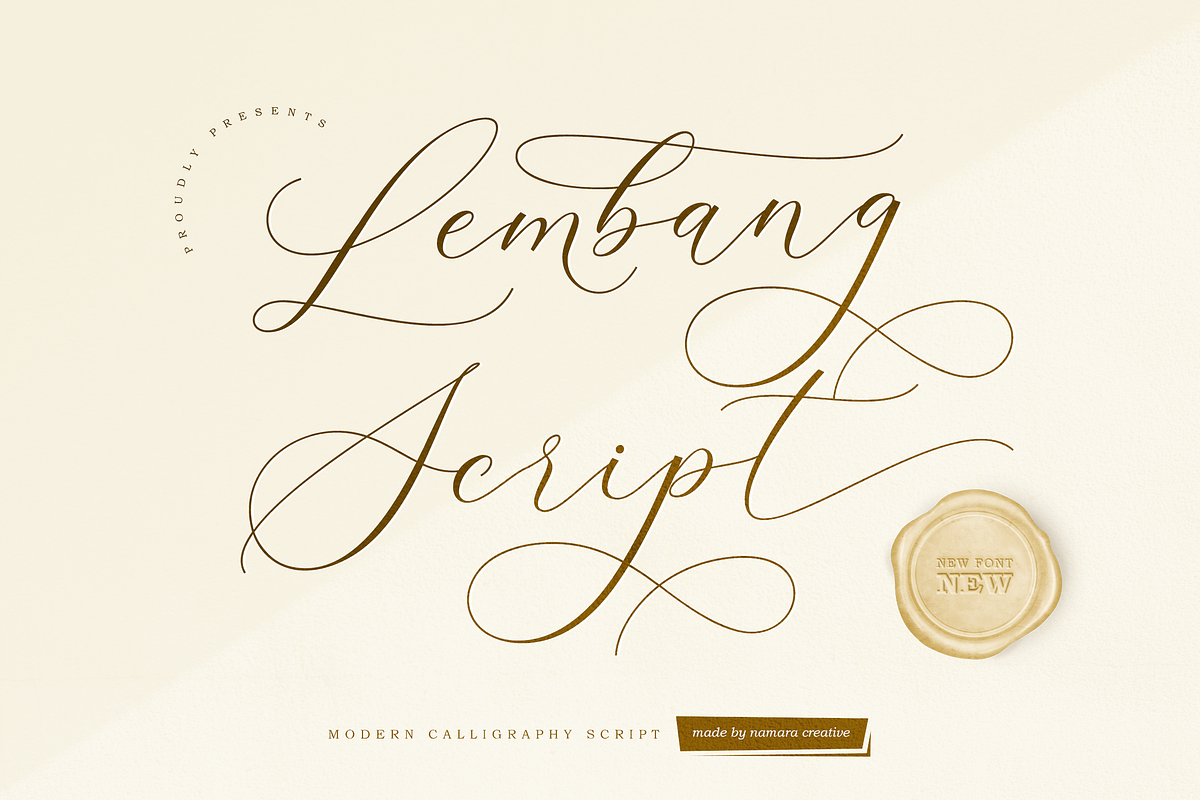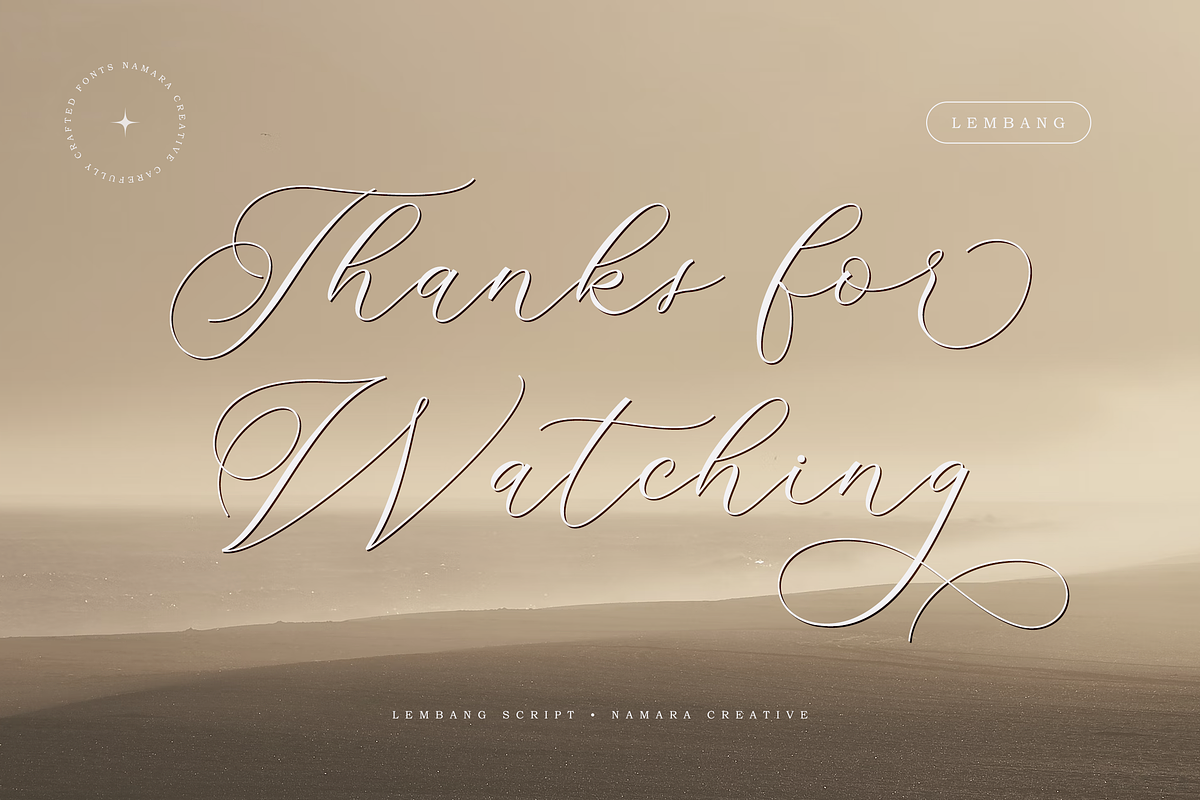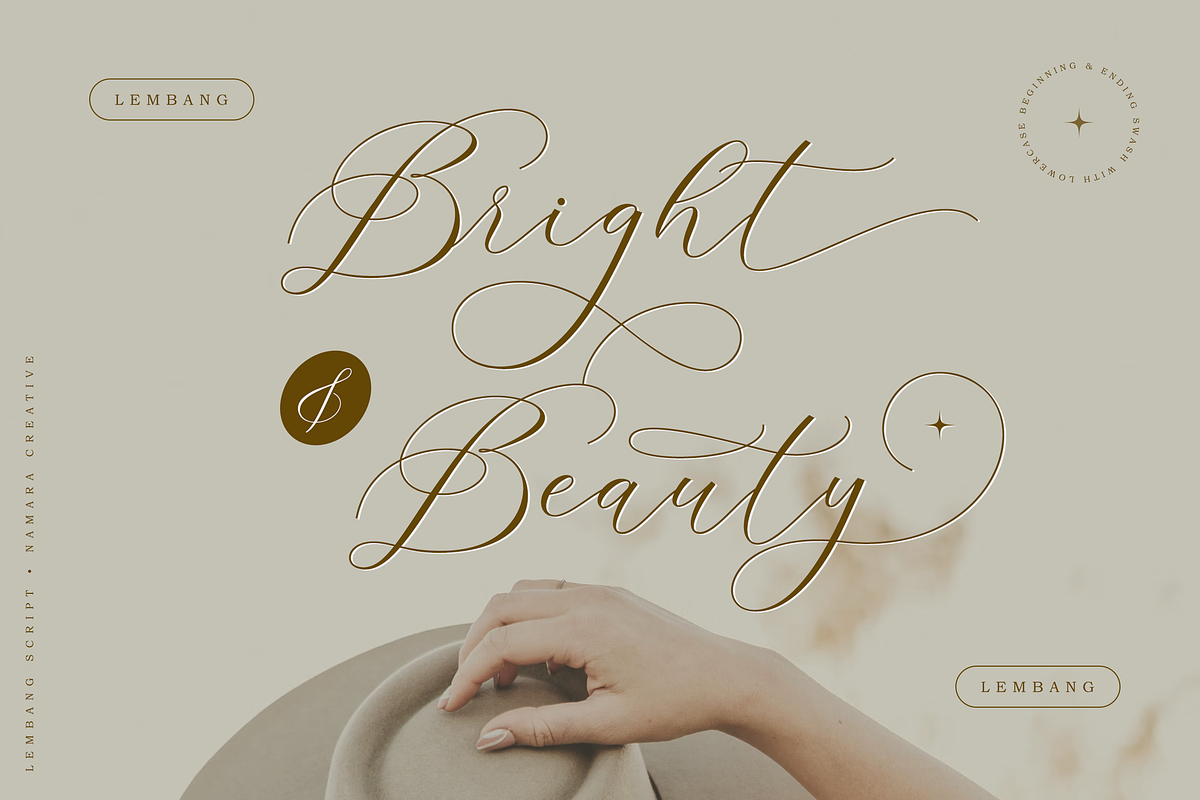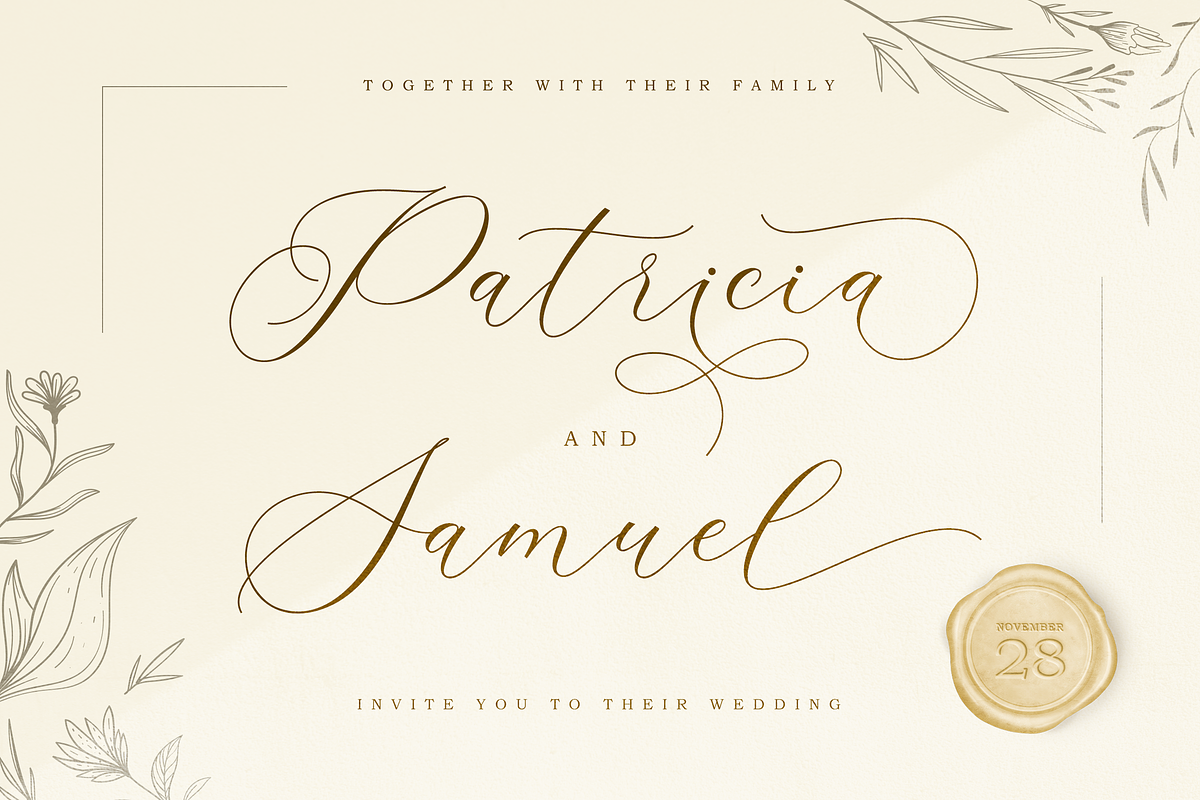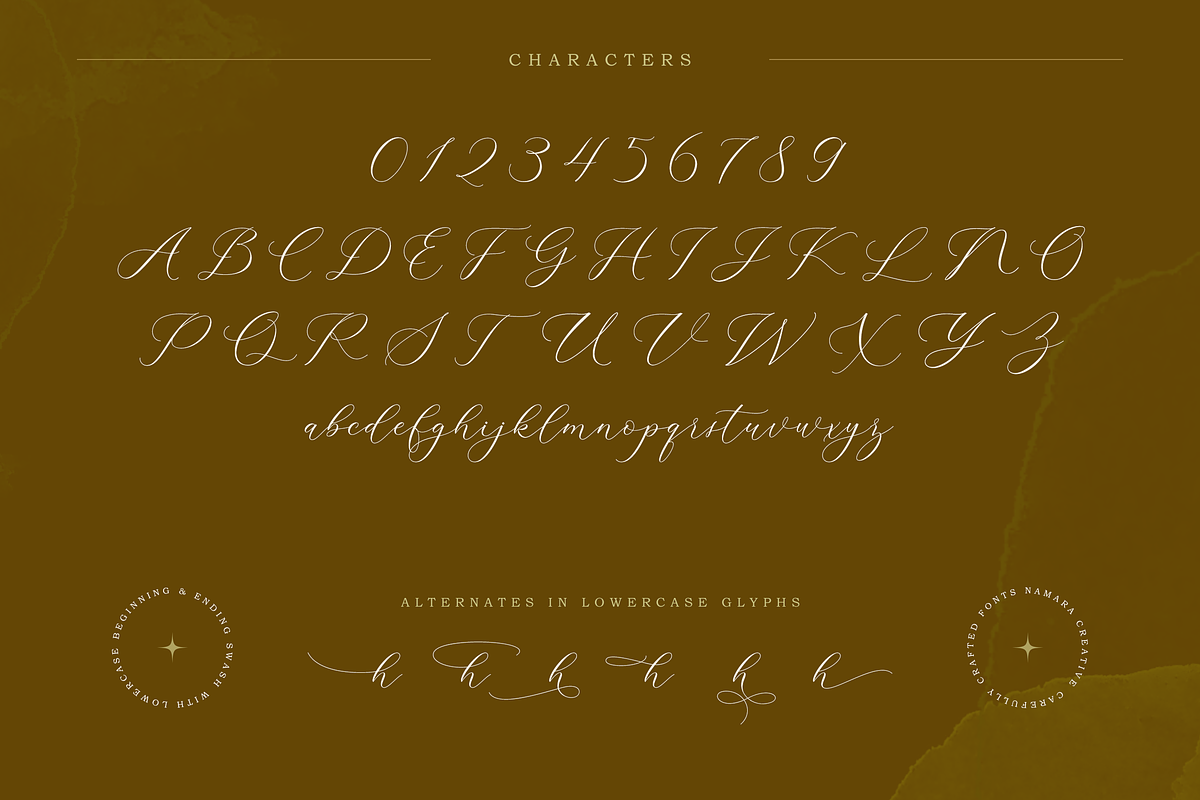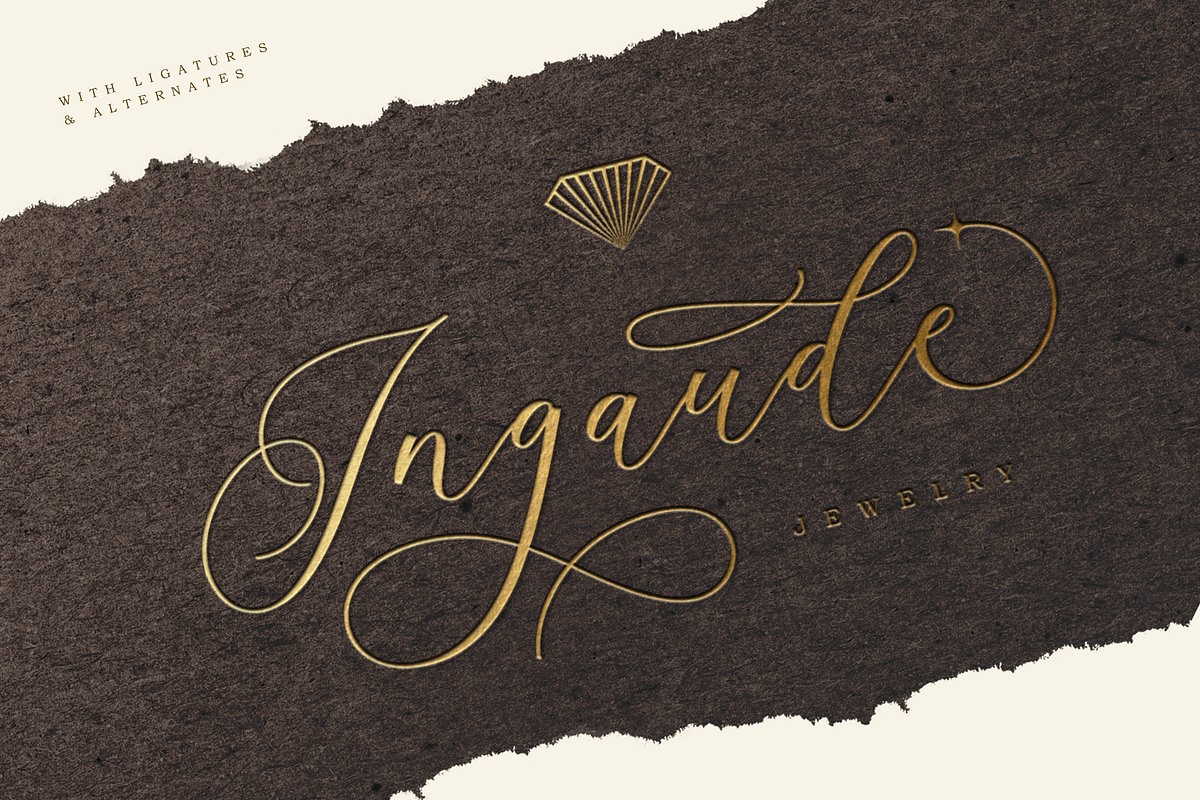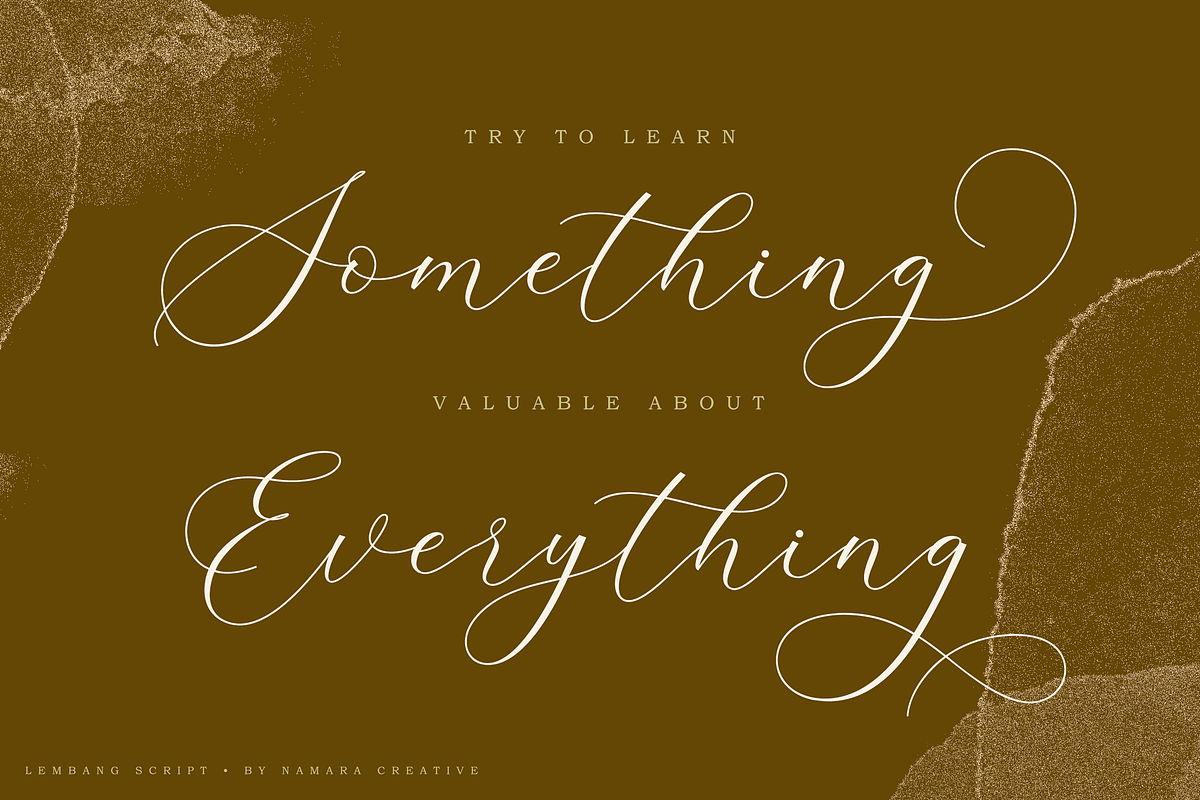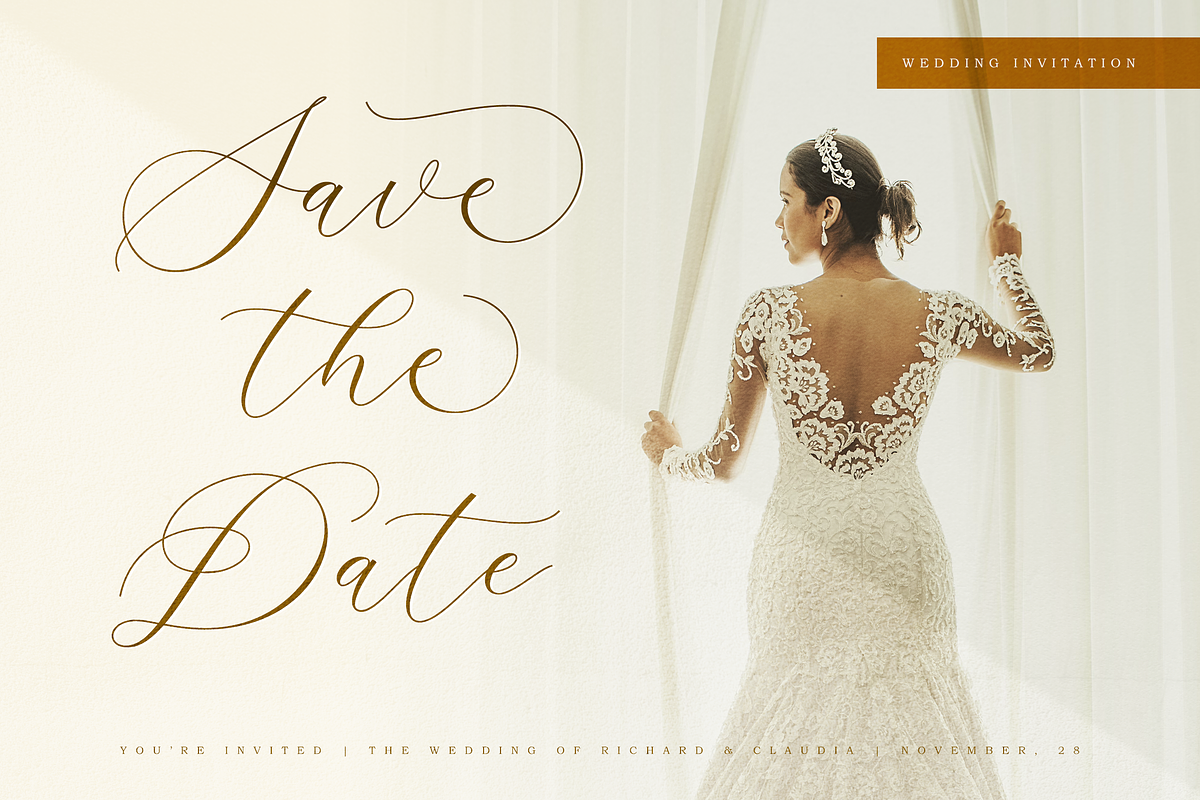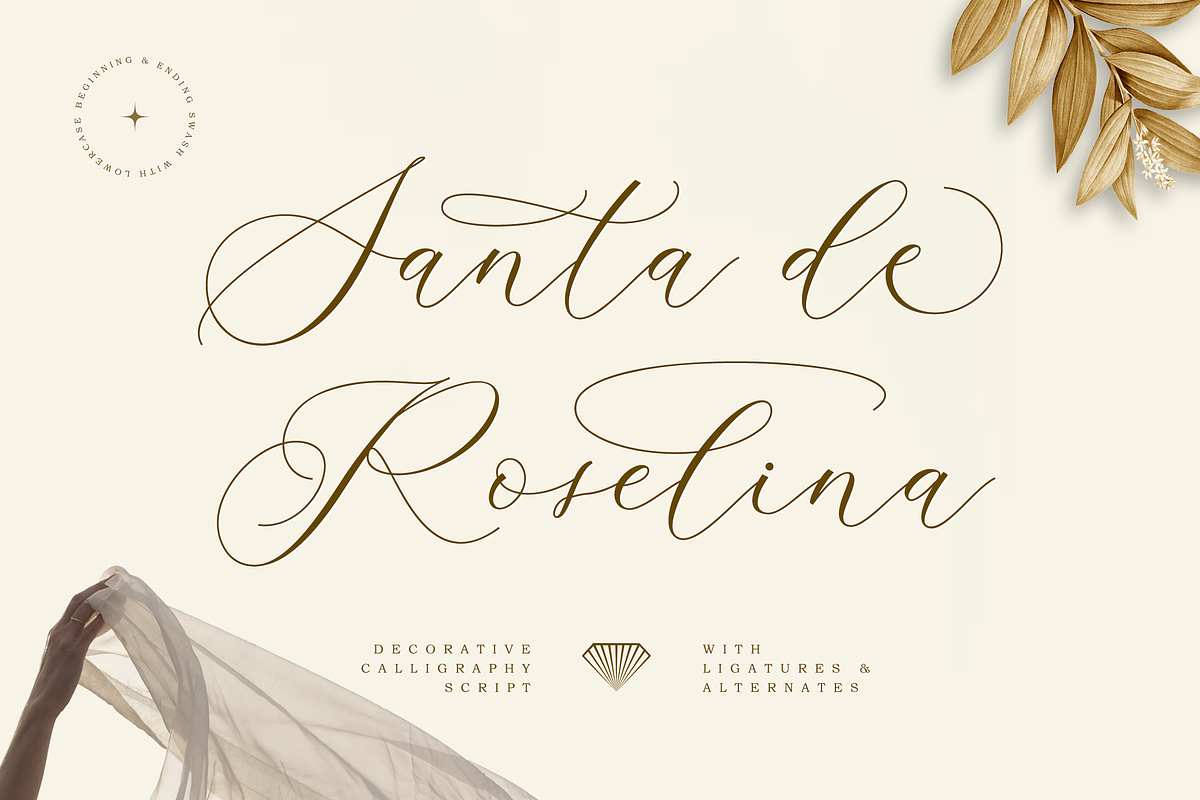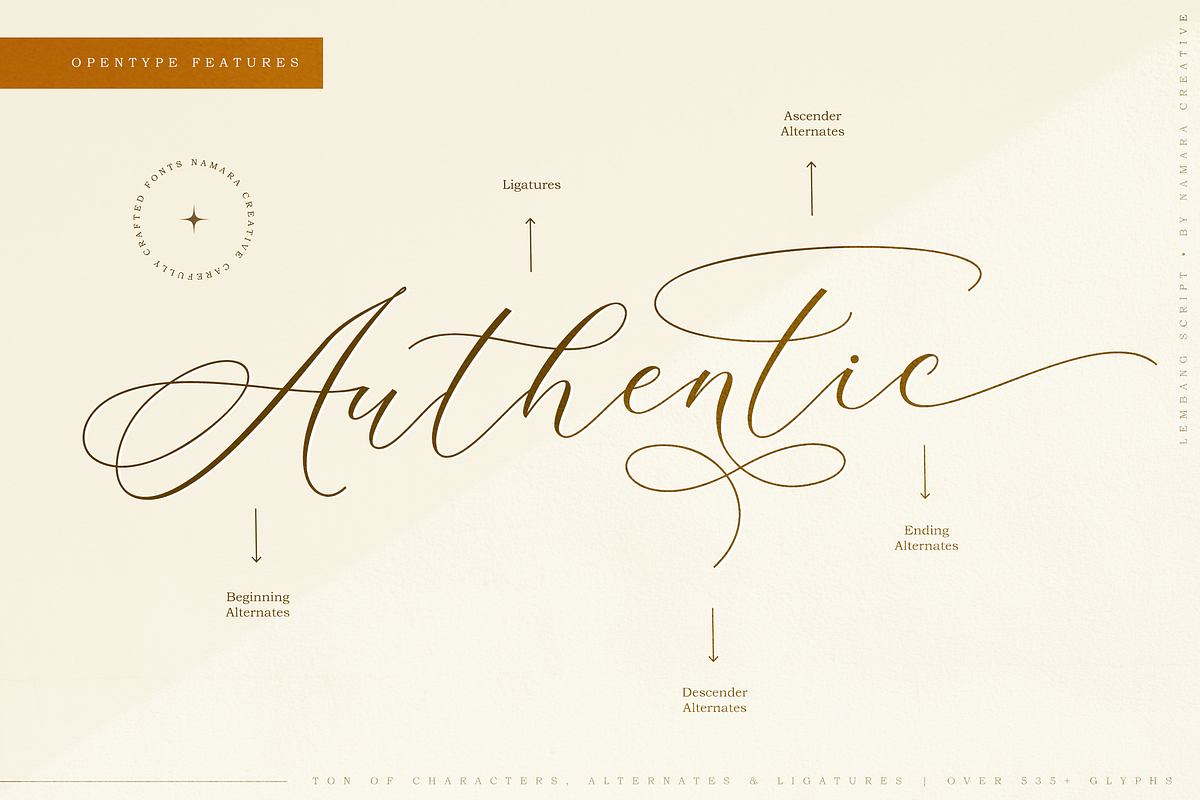
Lembang – Decorative Calligraphy
Transform your written creations with Lembang Script
Decorative calligraphy script font will elevate any project to a new level of elegance and sophistication. The intricate design of the script adds a touch of sophistication that is bound to leave a lasting impression. Perfect for wedding invitations, logos, stationery design, postcards, letterpress design, headings or titles, and many more. Get ready to captivate your audience with a truly extraordinary look!
- Full Set of standard characters and punctuations.
- Alternates, ligatures and multilingual support characters.